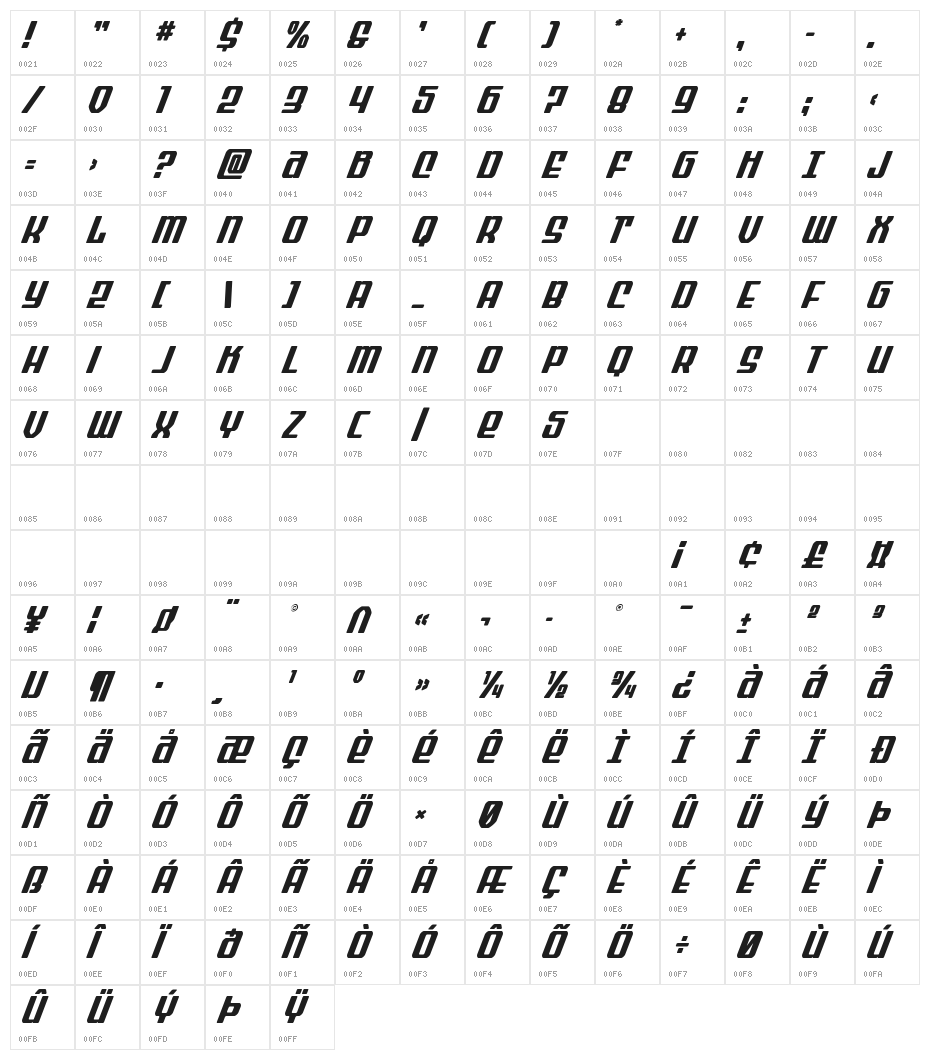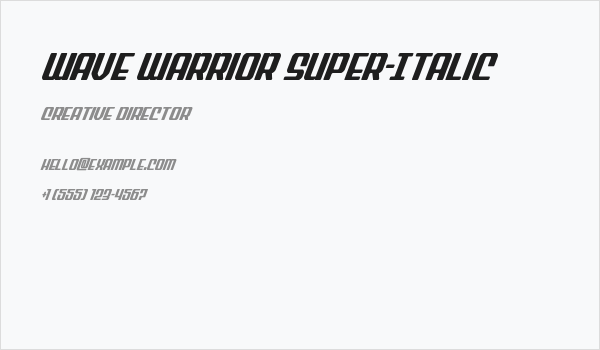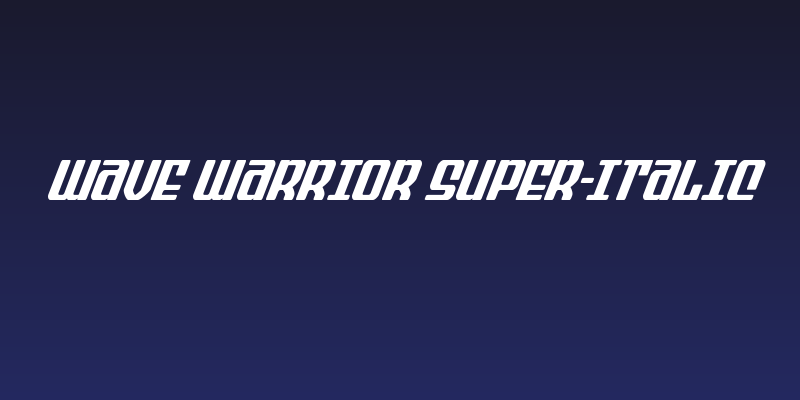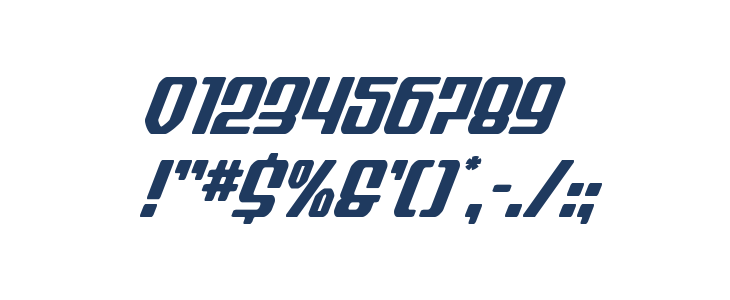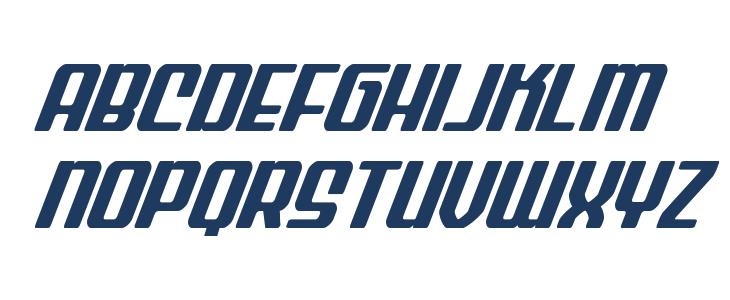
Wave Warrior Super-Italic Font
Wave Warrior Super-Italic Description
This font features a dynamic and bold italic style with a strong forward slant, giving it a sense of motion and energy. The characters are thick and robust, with a consistent stroke width that emphasizes its boldness. The design incorporates sharp angles and clean lines, creating a modern and assertive appearance. The uppercase and lowercase letters maintain a uniform style, while the numerals and special characters complement the overall aesthetic. This font is ideal for projects that require a strong visual impact and a contemporary look.
WAVE-WARRIOR-SUPER-ITALIC UPPERCASE
WAVE-WARRIOR-SUPER-ITALIC LOWERCASE
WAVE-WARRIOR-SUPER-ITALIC OTHER CHARS
| Proposed Projects | Ideal for sports branding, action-themed posters, dynamic logos, and modern advertising campaigns. |